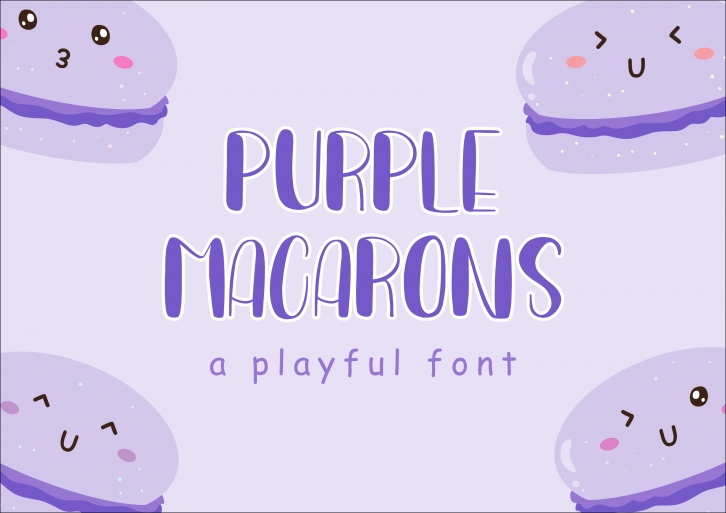
Purple Macaroon is an incredibly cool and unique display font. It has a modern yet whimsical style and it will undoubtedly immerse your designs into a magical world.Â